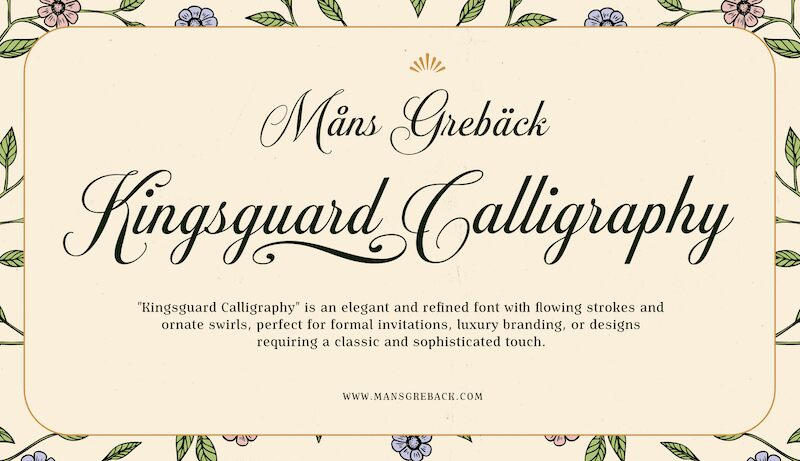
Kingsguard Calligraphy PERSONA Regular
Kingsguard Calligraphy font by Mans Greback is a sophisticated script font with graceful, flowing lines and a classic formal look. Its condensed style maintains a touch of grandeur, with loops and curves that give an exclusive appearance. An exceptional typeface capturing elegant handwriting through its thin strokes matched with neat fancy letters.
This free calligraphy font has many uses including elegant invitations, body tattoos, title texts and headings, packaging design additions like logos or label insignias for bottles or cans; fashionable advertising campaigns like newsletters; wedding stationery such as name cards along church news bulletins or similar.
Use an underscore (_) anywhere in a word to create a swash.
Example: Rose_field
You can use multiple underscores to create longer decorations.
Example: Magic_____land